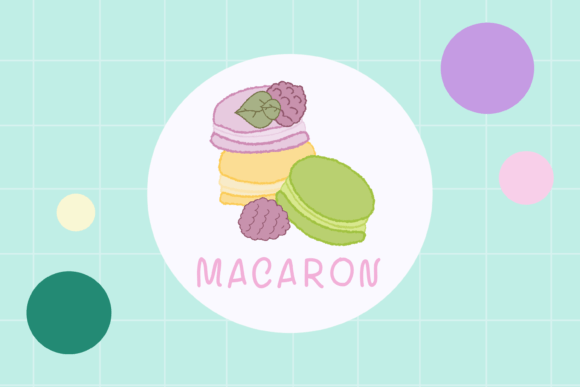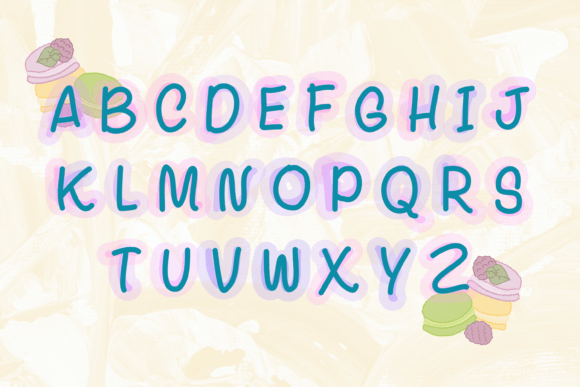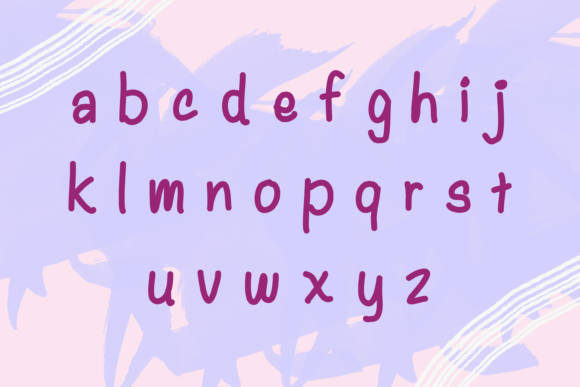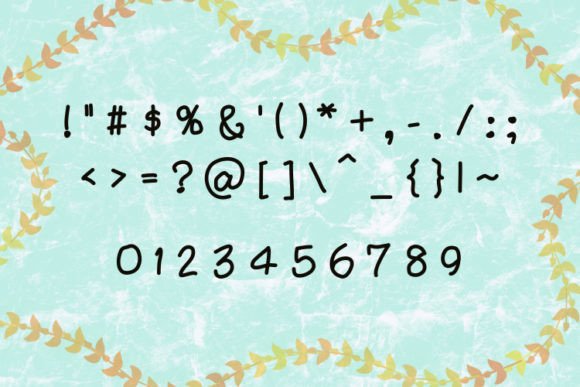
Macaron Font
Macaron Handwritten Font – Sweet and Whimsical Typeface
The Macaron Handwritten Font is a playful and charming script typeface designed to bring a sweet and quirky vibe to your creative projects. With its whimsical strokes and lighthearted flow, it is the perfect choice for adding personality to both digital and print designs. Whether you’re working on posters, greeting cards, or web graphics, this font makes your projects feel unique and delightful.
A Handwritten Script with Playful Style
The Macaron Handwritten Font combines clean handwritten curves with a quirky personality. Its sweet details make it stand out, while its balance ensures readability. Because of this, it adapts beautifully to many design contexts, from fun personal crafts to professional digital projects.
Perfect for Greeting Cards and Posters
One of the best uses of the Macaron Handwritten Font is in greeting cards and posters. Its whimsical style adds a fun element to personal messages and decorative prints. At the same time, it is well-suited for crafts, branding, and sublimation projects, where a playful handwritten style enhances the overall design.
The Macaron Handwritten Font adapts easily across various applications. From product packaging and labels to social media posts and website graphics, it adds a handwritten charm that feels casual yet stylish. Its versatility makes it a go-to option for designers seeking both fun and usability.
Why Designers Love Macaron Font
Designers love the Macaron Handwritten Font because it blends sweetness with functionality. Its quirky, whimsical strokes bring personality to creative work, while its clarity keeps it practical. This mix of fun and usability makes it an essential font for playful yet polished designs.
In summary, the Macaron HandwrittenFont is a sweet, whimsical, and versatile script typeface. With its playful handwritten strokes, quick installation, and broad usability, it is perfect for greeting cards, posters, crafts, and digital projects. Don’t miss the chance to download Macaron HandwrittenFont and bring a quirky, joyful touch to your next design.